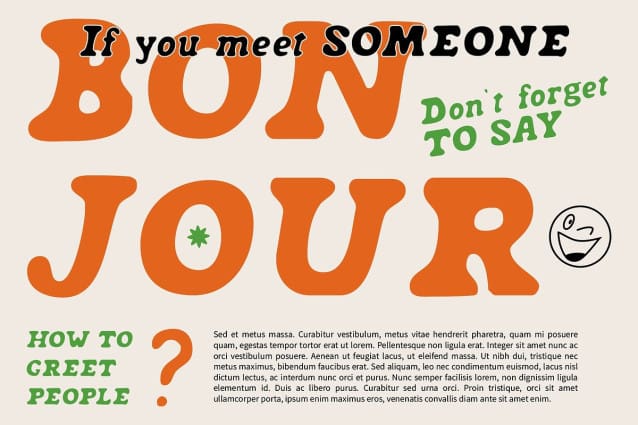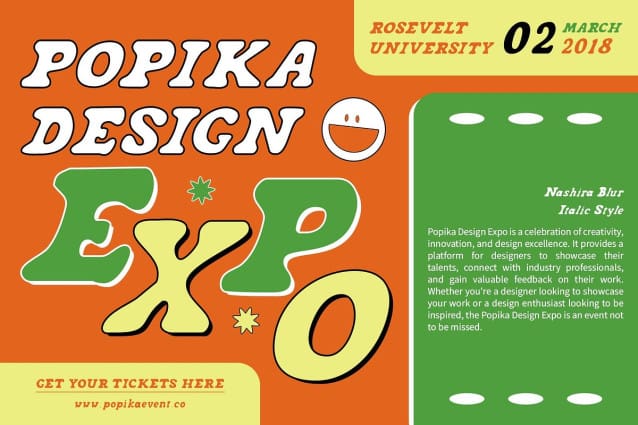
Nashira Blur Font
Nashira Blur Font is a serif font with a blur style, offering a cute and funky vibe that is perfect for designs seeking a unique, cute, and fun look. Its blurred effect adds a playful and dynamic element, making it ideal for children’s designs, greeting cards, and even logos.
With its versatile design, Nashira Blur Font is suitable for a variety of uses, including posters, packaging, and branding. Its cute and funky style adds a fun and lively flair, ensuring that your designs are full of personality.
Nashira Blur Font prioritizes visual appeal, ensuring that your designs are eye-catching and engaging. Whether used in print or digital media, this font adds a soft and inviting element that resonates with viewers.
Whether you’re designing children’s book covers, creating greeting cards, or developing a playful logo, Nashira Blur Font is the perfect choice for projects that require a unique, cute, and fun look. Its funky style ensures that your designs will always look cheerful and delightful.